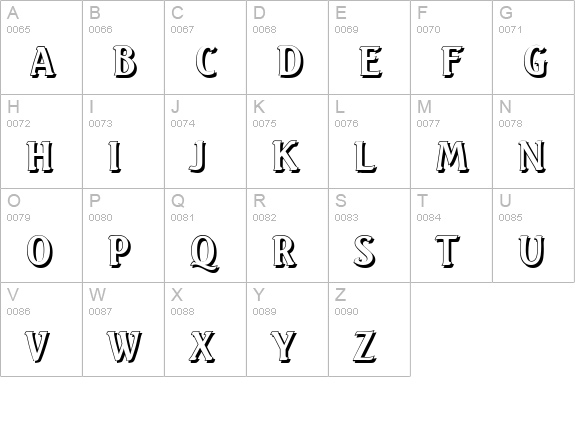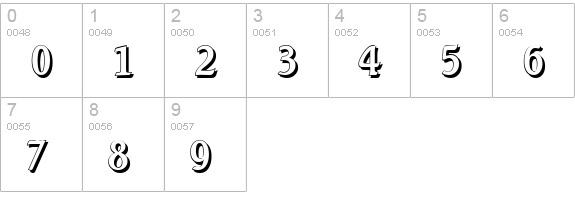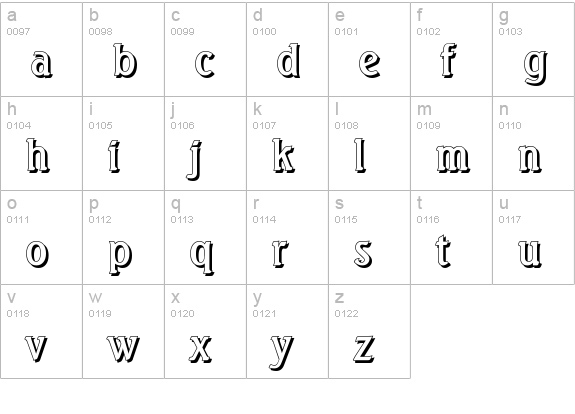
SeagullShadow-Regular is the standard, neutral variant in the SeagullShadow typeface family \xE2\x80\x94 well suited to general body text, paragraphs, and standard typographic work.
SeagullShadow-Regular font is a versatile and elegant typeface that exudes a sense of sophistication and modernity. Its sleek lines and contemporary design make it perfect for a wide range of projects, from branding to editorial design. The unique shadow effect adds depth and visual interest to any text, making it stand out on the page. What sets SeagullShadow-Regular font apart is not only its striking appearance but also the fact that it is completely free to download. Whether you're a designer looking to add a touch of class to your work or a business owner seeking a fresh look for your branding, this font is the perfect choice. You can easily access and download SeagullShadow-Regular font at FontsMarket.com, where it is available for free. Don't miss out on this opportunity to enhance your designs with this stylish and eye-catching font.